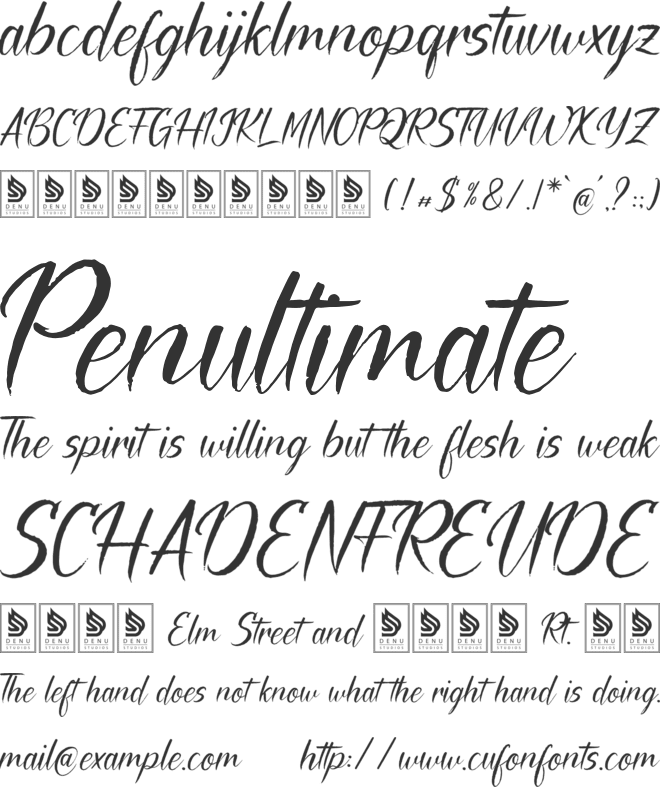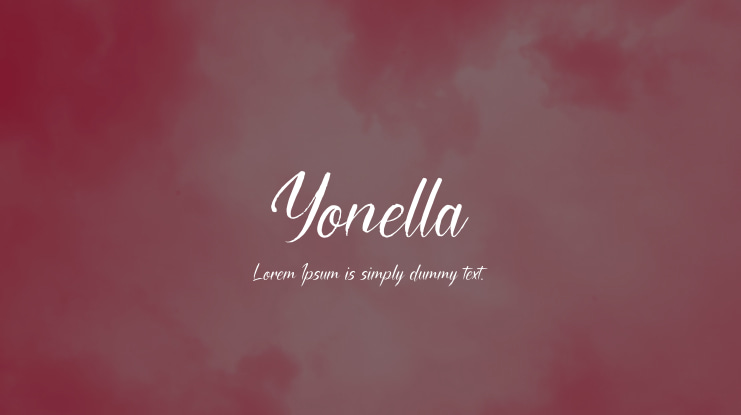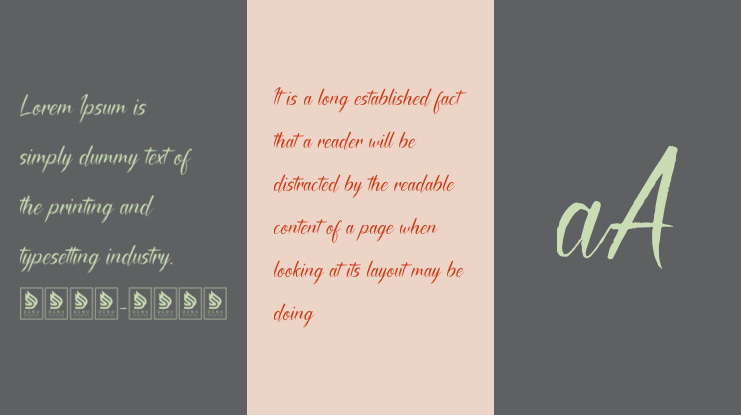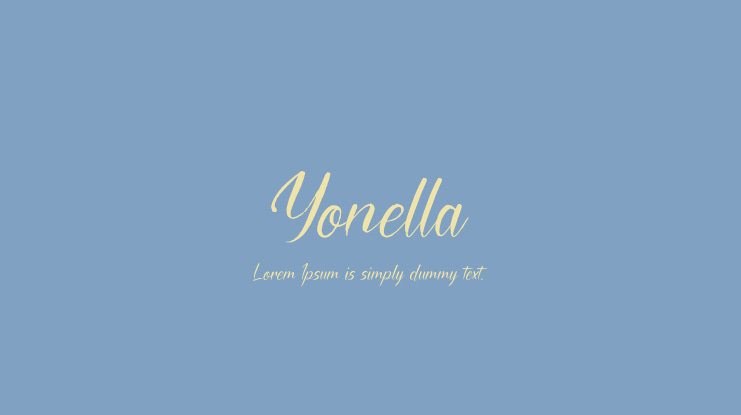
Yonella | Handwritten Solid Script is suitable for any projects such as: logos, branding projects, homeware designs, product packaging, mugs, quotes, posters, shopping bags, t-shirts, book covers, name card, invitation cards, greeting cards, label, photography, watermark, special events, and all your other lovely projects that need a Handwritten Brush Solid Script taste.